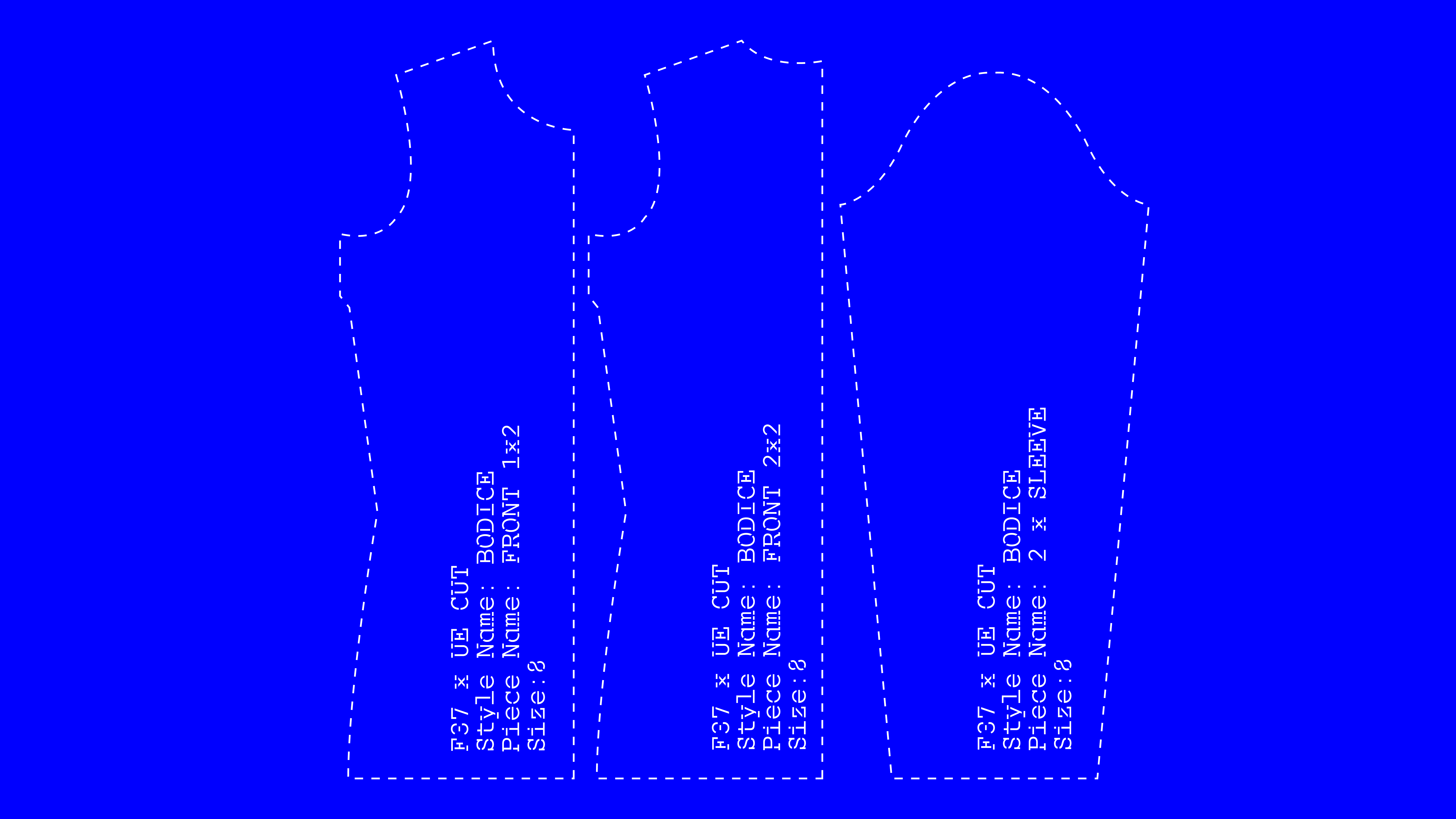
F37 Cut
F37 Cut is Universal Everything’s genre blending display font.
Part mono-spaced, part stencil and part slab serif, Universal Everything have designed a font that elegantly unites all three genres in a versatile font family. F37 Cut delivers a graphic and pragmatic approach to stencil cuts throughout the letter forms. Characters such as the ‘R P e’ are all examples of this refreshing take. This font family is available in 4 weights and is packed with other goodies like alternate characters and old-style numerals.
F37® × Universal Everything